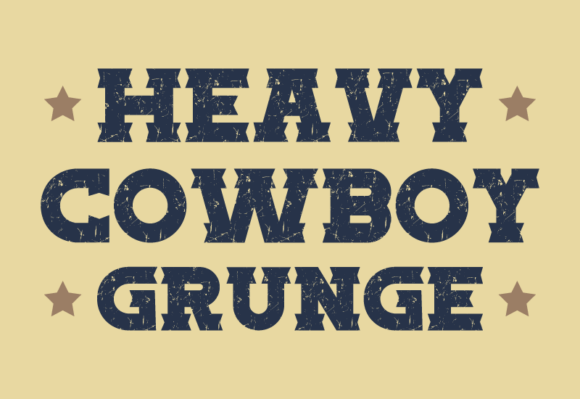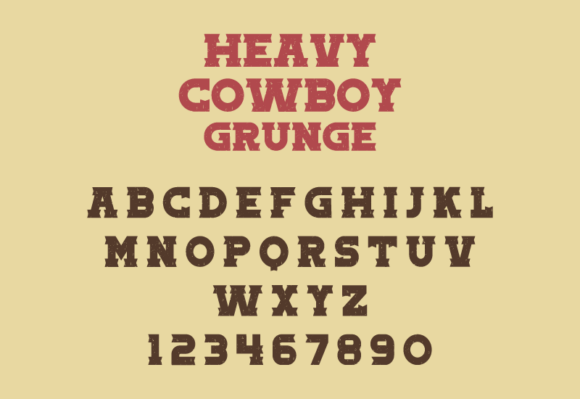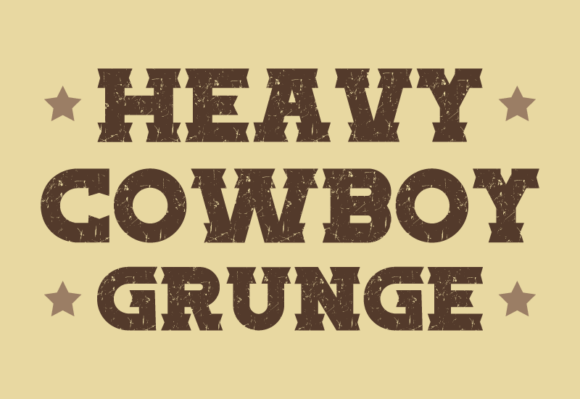
Unleash the Wild West Charm with Heavy Cowboy Grunge Font
Are you a designer or craft looking to add a touch of Western charisma and retro charm to your projects? Look no further than the “Heavy Cowboy Grunge” font. This uniquely designed serif character set is the perfect blend of vintage proportions and modern minimalism, making it ideal for logos, web design, and branding.
The Essence of the Wild West
The Heavy Cowboy Grunge font is more than just a font – it’s an aesthetic journey back in time to the era of cowboys and outlaws. With its rugged and distressed texture, this font embodies the spirit of the Wild West, evoking feelings of nostalgia and adventure. Whether you’re designing a logo for a Western-themed restaurant, creating a website for a outdoor gear company, or crafting a brand identity for a fashion label, this font is sure to add a touch of rugged charm to your project.
Unique Design and Versatility
What sets the Heavy Cowboy Grunge font apart is its unique design and versatility. The serif character set has a delightful balance of vintage proportions, making it perfect for a variety of design applications. The font’s distressed texture gives it a worn and weathered look, as if it’s been plucked straight from a vintage wanted poster. At the same time, the font’s clean lines and minimal ornamentation ensure that it remains highly legible, even at smaller sizes.
Bringing Minimalism to Life
One of the key benefits of the Heavy Cowboy Grunge font is its ability to bring minimalism to life. In an era where bold and flashy designs are often the norm, this font offers a refreshing alternative. Its understated elegance and subtle texture make it perfect for designers who want to create a strong visual impact without overwhelming their audience. Whether you’re designing a logo, website, or brand identity, this font is sure to add a touch of sophistication and refinement to your project.
The Heavy Cowboy Grunge font is perfect for designers and crafters who want to add a touch of Western charm to their projects. Whether you’re a professional designer or a DIY enthusiast, this font is easy to use and versatile enough to be adapted to a wide range of design applications. From logos and branding to web design and crafting, this font is sure to inspire your creativity and help you bring your vision to life.
• Uniquely designed serif character set with a distressed texture
• Vintage proportions with a modern twist
• Perfect for logos, web design, and branding
• Highly legible, even at smaller sizes
• Distressed texture gives it a worn and weathered look
• Clean lines and minimal ornamentation
• Perfect for designers and crafters who want to add a touch of Western charm to their projects
In conclusion, the Heavy Cowboy Grunge font is a must-have for designers and crafters who want to add a touch of Western charisma and retro charm to their projects. With its unique design, versatility, and distressed texture, this font is perfect for a wide range of design applications. Whether you’re designing a logo, website, or brand identity, this font is sure to inspire your creativity and help you bring your vision to life. So why wait? Download the Heavy Cowboy Grunge font today and experience the infusion of Western charm and retro appeal in your designs.
Get Ready to Tell Your Riveting Tale
With the Heavy Cowboy Grunge font, you’re not just getting a font – you’re getting a story to tell. This font is more than just a design element – it’s a way to transport your audience back in time to the era of cowboys and outlaws. Whether you’re designing a website, logo, or brand identity, this font is sure to add a touch of nostalgia and adventure to your project. So why wait? Download the Heavy Cowboy Grunge font today and get ready to tell your riveting tale.